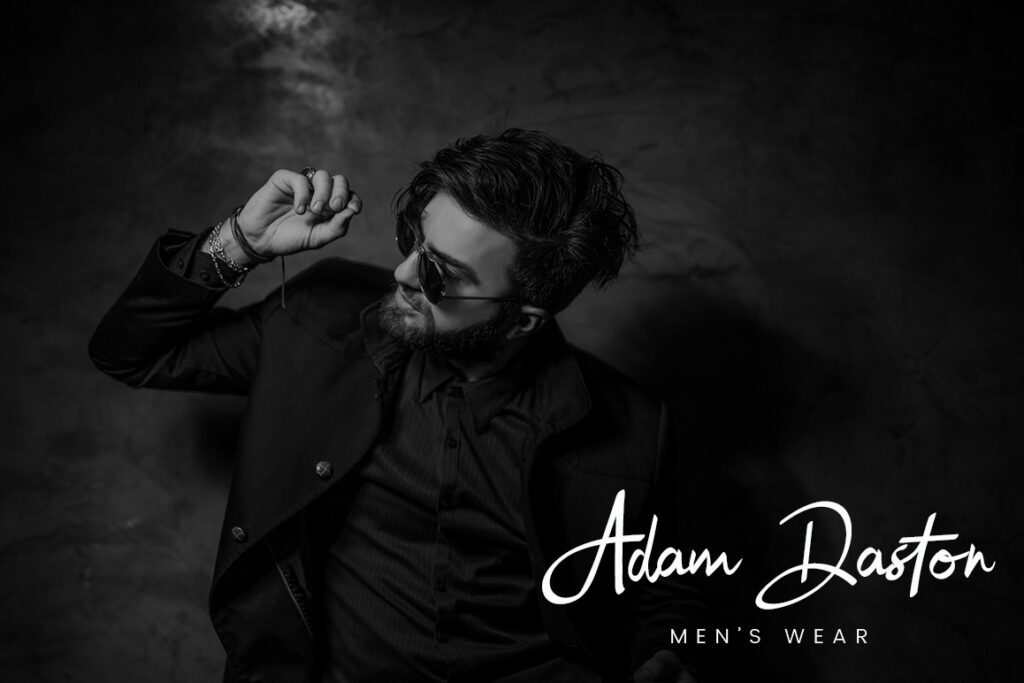
Bulgatti Font: Elevate Your Design with Luxury and Sophistication
In the world of typography, fonts play a crucial role in conveying the tone and personality of a brand. For luxury brands, in particular, the right font can make all the difference in projecting an image of sophistication and elegance. This is where the Bulgatti font comes in – a stunning, casually crafted script font that embodies the essence of luxury and refinement.
Bulgatti: A Luxury Script Font with Sophisticated Style
Bulgatti is a luxury script font that boasts a sleek, strong, and confident design. Inspired by the elegance found in luxury brands, this font is perfect for designers looking to add a touch of sophistication to their projects. Whether you’re working on a branding campaign, packaging design, or website, Bulgatti is sure to make a lasting impression.
With its fluid strokes and carefully crafted letterforms, Bulgatti exudes a sense of refinement and poise. The font’s sophisticated style is reminiscent of high-end fashion brands, making it an ideal choice for designers who want to create a luxurious feel.
Key Features of Bulgatti Font
- Sleek and Strong Design: Bulgatti’s bold, yet elegant design makes it perfect for headlines, titles, and other display text.
- Sophisticated Style: The font’s refined and luxurious feel makes it ideal for high-end branding and design projects.
- Casually Crafted: Bulgatti’s casual, yet elegant design makes it perfect for a wide range of design applications, from packaging to websites.
- Highly Versatile: The font’s flexibility makes it suitable for use in various design contexts, including logos, titles, and body text.
Using Bulgatti Font in Your Designs
Bulgatti is a versatile font that can be used in a variety of design applications. Here are a few examples:
- Branding and Logos: Use Bulgatti to create a luxurious and sophisticated brand identity that exudes confidence and elegance.
- Packaging Design: Add a touch of refinement to your packaging designs with Bulgatti’s elegant and refined font.
- Web Design: Use Bulgatti to create stunning website headers, titles, and other display text that showcases your brand’s luxurious personality.
- Advertising and Marketing: Bulgatti’s bold and sophisticated design makes it perfect for use in advertising and marketing materials, such as billboards, brochures, and flyers.
Typography Tips for Using Bulgatti Font
To get the most out of Bulgatti, here are a few typography tips to keep in mind:
- Pair with Neutral Fonts: Pair Bulgatti with neutral fonts, such as sans-serif or serif fonts, to create a balanced and harmonious design.
- Use Contrast: Use contrasting font sizes, colors, and styles to create visual interest and hierarchy in your design.
- Experiment with Colors: Bulgatti looks stunning in a range of colors, from metallic tones to rich jewel tones. Experiment with different colors to find the perfect fit for your brand.
Pairing Bulgatti with Other Fonts
Bulgatti can be paired with a range of fonts to create a unique and visually appealing design. Here are a few font pairing suggestions:
- Montserrat: This sans-serif font pairs perfectly with Bulgatti, creating a balanced and modern design.
- Playfair Display: This elegant serif font complements Bulgatti’s luxurious feel, creating a sophisticated and refined design.
- Lato: This clean and modern sans-serif font pairs well with Bulgatti, creating a harmonious and professional design.
In conclusion, Bulgatti is a luxury script font that embodies the essence of sophistication and elegance. With its sleek, strong, and confident design, this font is perfect for designers looking to add a touch of luxury to their projects. Whether you’re working on a branding campaign, packaging design, or website, Bulgatti is sure to make a lasting impression.